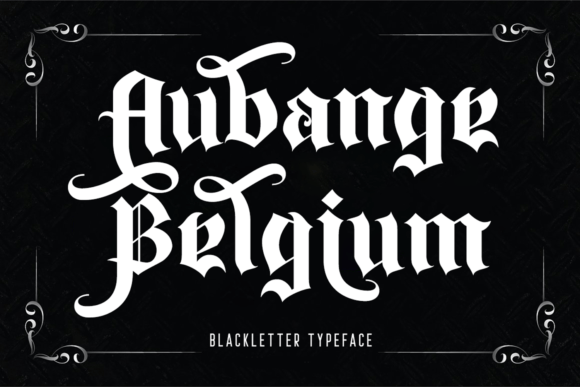
Unleashing the Power of the Past: Introducing the Aubange Belgium Font
As a designer, have you ever been stuck in a creative rut, searching for the perfect font to give your project that extra oomph? I know I have! There’s something about stumbling upon a font that sparks a spark of inspiration, and suddenly, the design starts flowing. For me, that moment came when I discovered the Aubange Belgium Font – a modern twist on the classic blackletter font.
Designed to bring a touch of power and sophistication to any project, the Aubange Belgium Font is a game-changer for designers. With its strong, prominent characters, it’s the perfect choice for anyone looking to make a statement. Whether you’re working on a bold brand identity or a striking advertisement, this font is sure to deliver. By incorporating the Aubange Belgium Font into your design, you’ll add a level of depth and emotion that will leave a lasting impression on your audience.
- Unique Characteristics: The Aubange Belgium Font features a unique blend of modern and traditional design elements, with a distinctive flair for the Belgian architecture and culture.
A Designer’s Review of Aubange Belgium Font
As a designer, I was excited to dive into the Aubange Belgium Font and see what it had to offer. Here’s my honest take on this font.
- Unique character: The Aubange Belgium Font has a distinct, elegant feel to it, making it perfect for designers looking to add a touch of sophistication to their projects.
- High legibility: The font is highly legible, even at smaller font sizes, making it suitable for a wide range of applications.
- Cultural significance: The font is inspired by the Belgian culture, which adds an interesting layer of depth to its design.
- Limited font families: The font family is relatively small, which may limit its versatility in certain projects.
- No bold/italic weights: The font lacks bold and italic weights, which may make it less suitable for headings and emphasis.
- Not suitable for body text: While the font is legible, it may not be the best choice for large blocks of body text due to its elegant, refined feel.
Overall, I think the Aubange Belgium Font is a great choice for designers looking to add a touch of elegance and sophistication to their projects. While it has some limitations, its unique character and high legibility make it a solid addition to any font collection.
Tips: Use the Aubange Belgium Font for titles and headings to add a touch of elegance and sophistication to your design.
Tips: Use the Aubange Belgium Font for typography-heavy designs, such as posters or brochures, to add a sense of classic charm.
Tips: Use the Aubange Belgium Font for presentations or documents that require a professional and elegant look.
The Aubange Belgium Font is suitable for a variety of designs, including:
- Restaurant menus and signage
- Travel brochures and posters